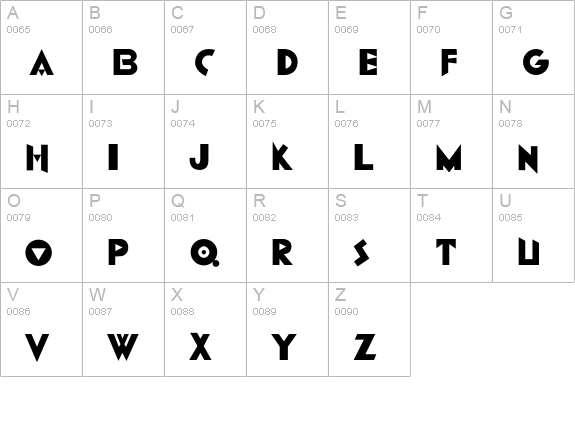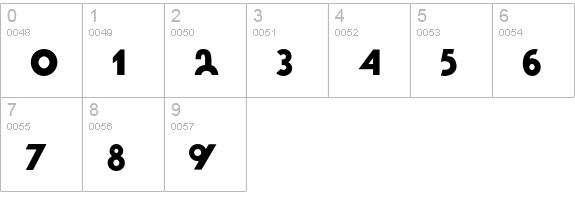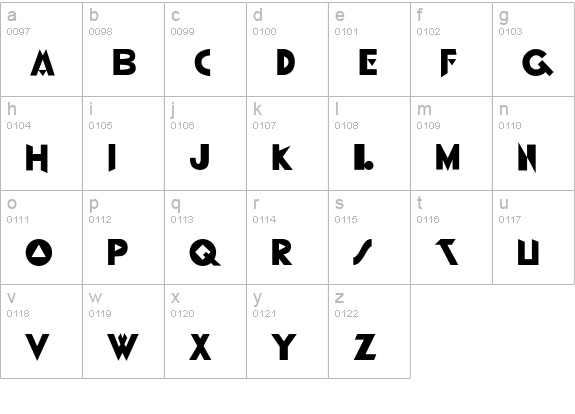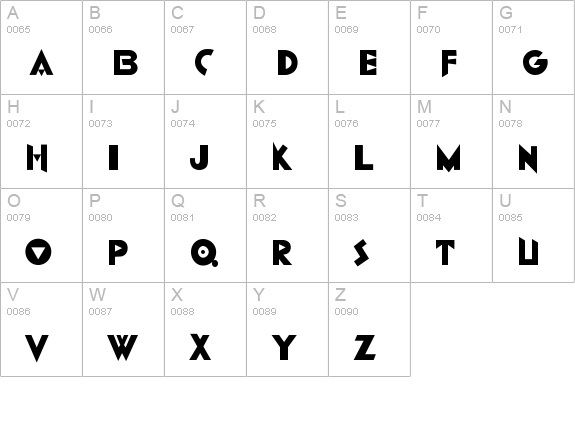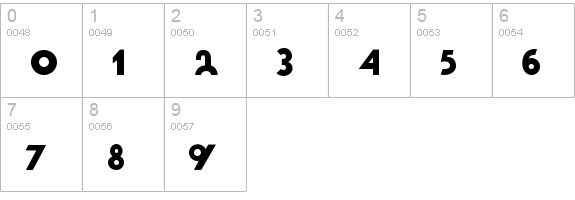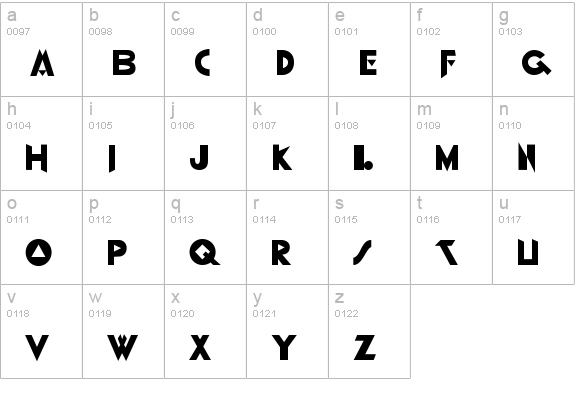
IlFuturismo Font Details
IlFuturismo font is a stunning typeface that encapsulates the essence of the Futurist art movement. With its sleek and dynamic letterforms, this font exudes a sense of energy and forward-thinking. It is a perfect choice for designs that aim to convey a sense of innovation, progress, and modernity. The unique characteristics of IlFuturismo font make it stand out from the crowd. Its bold and geometric shapes are masterfully crafted to create a harmonious balance between form and function. The sharp angles and clean lines give this font a futuristic and futuristic appearance, making it an excellent choice for branding, advertising, and editorial projects. One of the most remarkable aspects of IlFuturismo font is that it is freely available to download at FontsMarket.com. This means that designers and creatives can effortlessly access this extraordinary typeface and incorporate it into their projects without any cost. This accessibility allows for greater freedom and creativity, as it empowers users to experiment and explore the possibilities that this font offers. Whether used in headlines, logos, posters, or website designs, IlFuturismo font brings a sense of dynamism and sophistication to any project. Its versatility allows it to be applied to various design styles, from futuristic and minimalistic to bold and expressive. With its wide range of weights and styles, designers can easily adapt IlFuturismo to suit their specific needs and achieve the desired visual impact. In conclusion, IlFuturismo font is a captivating typeface that embodies the spirit of the Futurist movement. Its sleek and dynamic letterforms, combined with its versatility and accessibility, make it an invaluable asset for designers seeking to create impactful and innovative designs. Download IlFuturismo font for free at FontsMarket.com and unlock a world of creative possibilities.